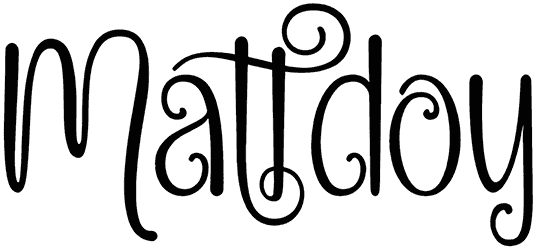
Sweet Gentle Font
There are a lot of projects like websites, fashion magazines, packaging, and logos and you can use a font that is creative and cute with a little bit of artistic style. If you are looking for something like that then we suggest Sweet Gentle which is a free dream font.
This whimsical tattoo font contains both the uppercase and lowercase of the alphabets and punctuation marks and there are no numbers. By the way, the readability of this font isn’t great.
Designed by: Fontdroe